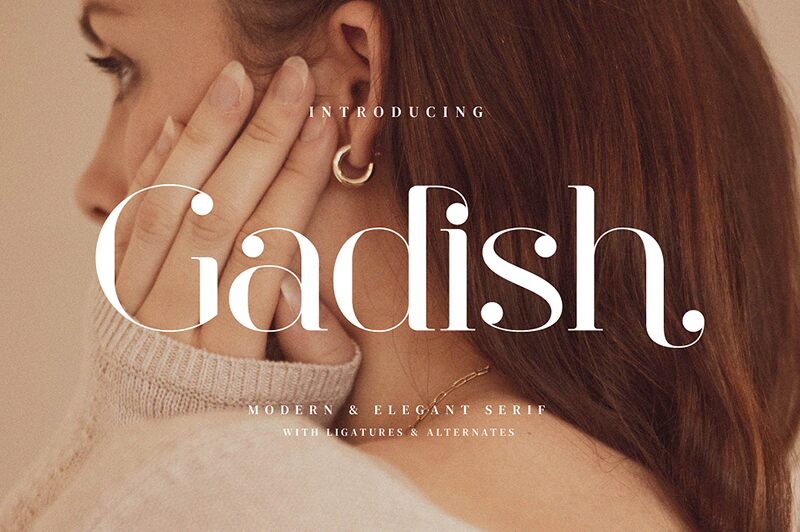
Gadish
Gadish font is a modern high contrast serif created by Biham Santoso. Sleek and sophisticated, this breathtaking typeface exudes elegance with every stroke. The perfect combination of classic and contemporary elements leads to an exquisite style that will leave your audience in awe.
Free serif font with a distinctive character suitable for posters, branding, logotypes, album covers, headlines, quotes, clothing print designs, invitations (especially weddings), product packaging and so much more!